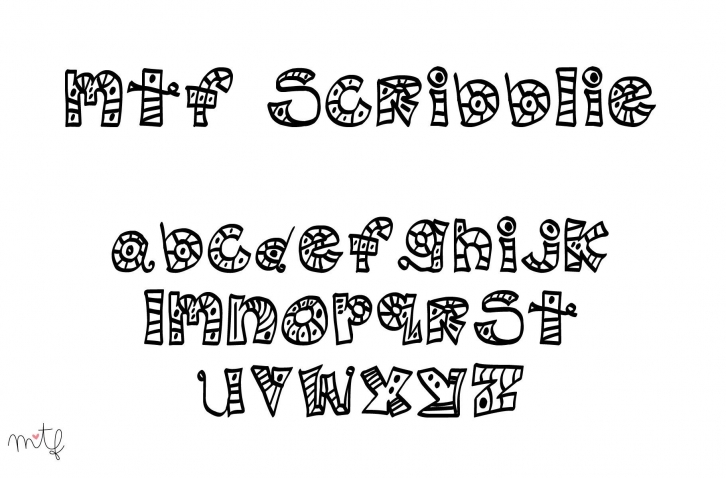
Scribblie is a fun and playful decorative font. Its letters are perfectly bold and unique, suitable for covers, posters, banners, storybooks, or any item that needs a special look.